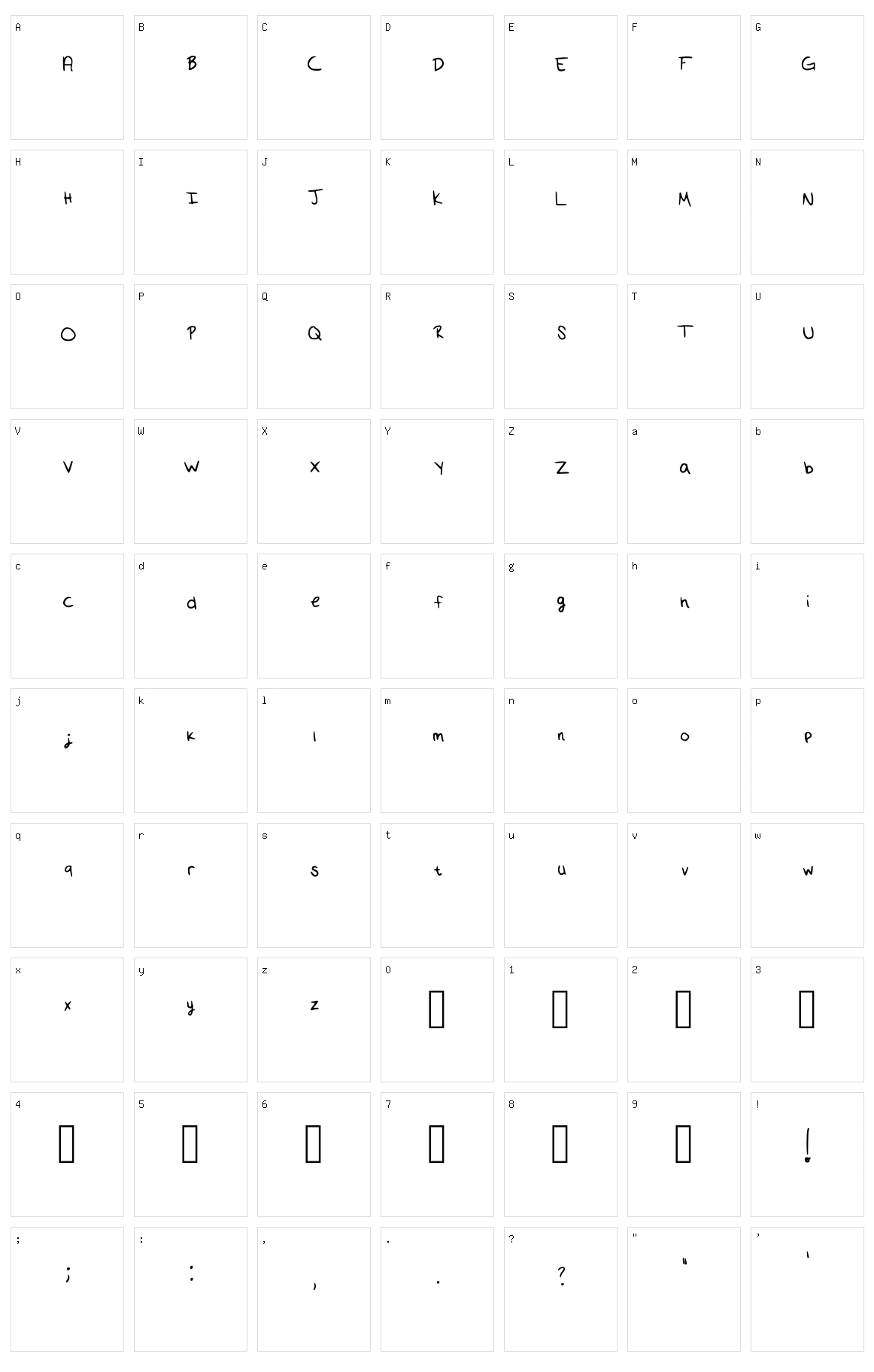
The free font Cloudy Days is carefully designed by Claudia Kills, showcasing a thoughtful balance of creativity and usability and falls under the Script font style. When you download the ZIP file, it contains only 6.22 KB of font files, making it lightweight and quick to download. Please review the license details below to understand permitted usage and distribution rights. If license information is not available, we recommend using this font for personal projects only or contacting the author directly for commercial usage permissions.